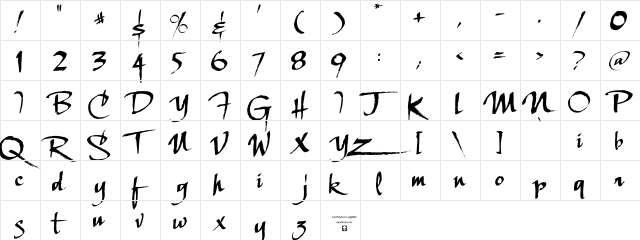
LHF Scriptana Reg Regular
Regular · Chuck Davis for Letterhead Fonts Chuck Davis ·
Design Context for LHF Scriptana Reg Typeface
LHF Scriptana Reg flows with the natural rhythm of handwritten lettering, making it ideal for designs that call for warmth and personal expression.
Font Pairing: Combine LHF Scriptana Reg with a simple geometric sans for maximum contrast — the tension between flowing curves and clean structure is a classic typographic pairing.
Pro Tip: Use LHF Scriptana Reg for short runs of text — names, titles, or taglines. Extended body copy in script faces tires the eye quickly.